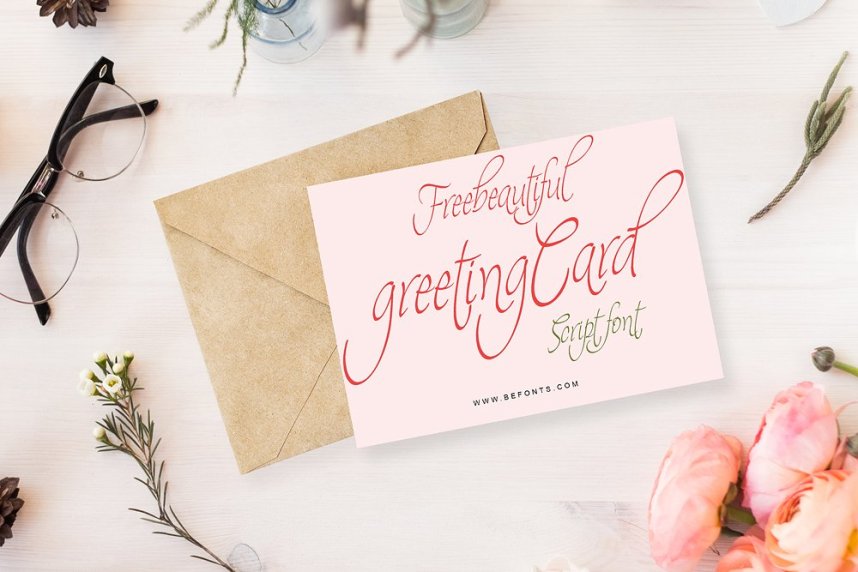
Theage Script Font
Introducing Theage script font! A new type of handwriting. It is completely manual, with the best feeling, you will find it very close because it is very similar to our handwriting.
Theage Suitable for Branding, greeting cards, business card, apparel, t-shirt (your name), signature, logo, correspondence, and a variety of other purposes.